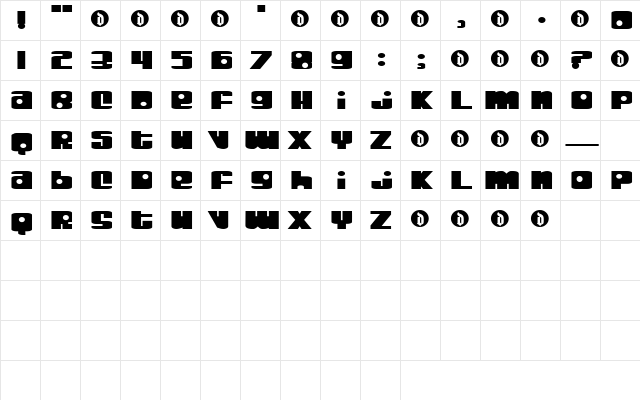
JiffyType Regular
Design Context for JiffyType Typeface
JiffyType is a composed and adaptable typeface that performs quietly and consistently across a wide range of design contexts.